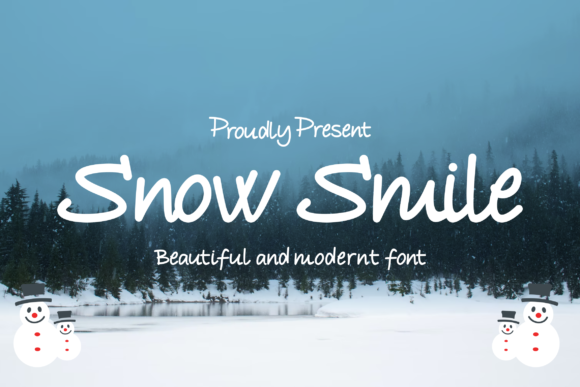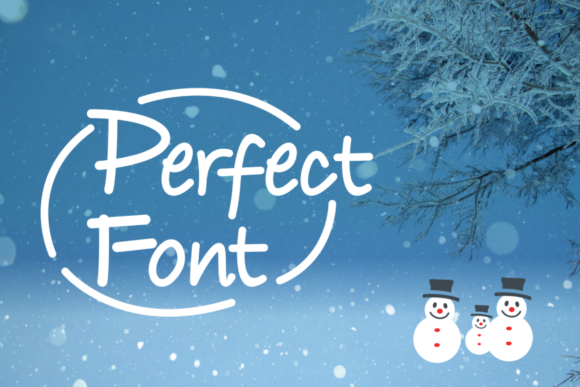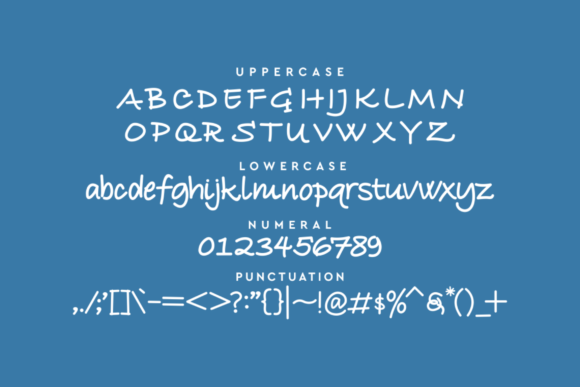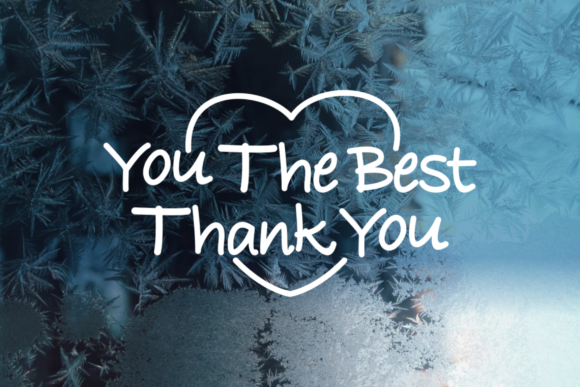
Snow Smile Font
About Snow Smile Font
Snow Smile is a cool and authentic handwritten font. The font is suitable for any branding project like logo, t-shirt printing, esport, and many more. It will outstanding in a wide range of contexts.